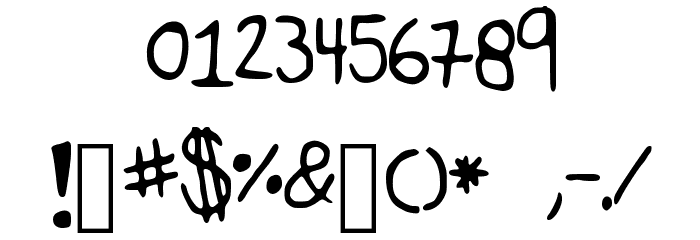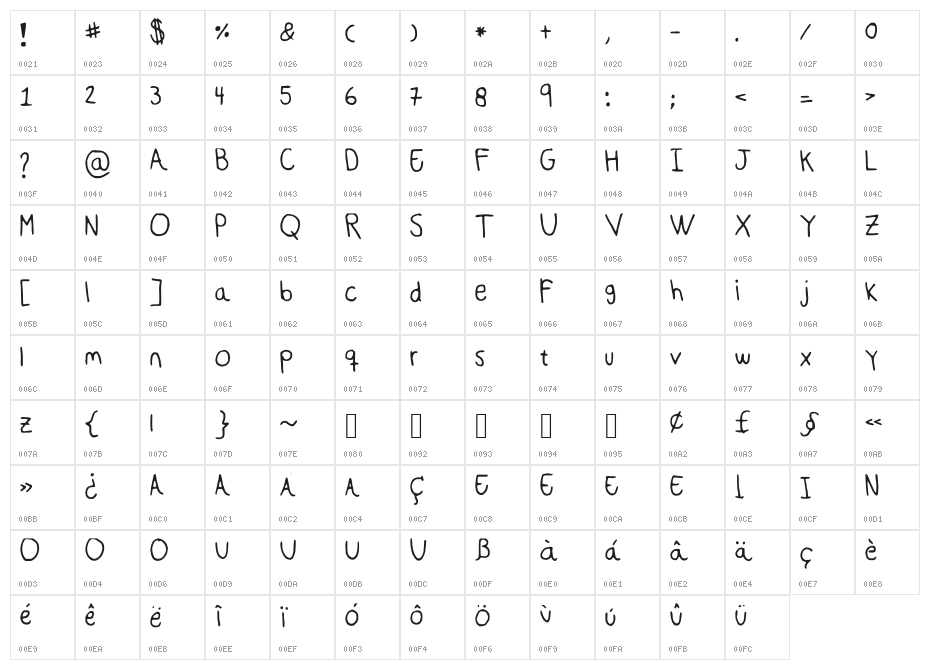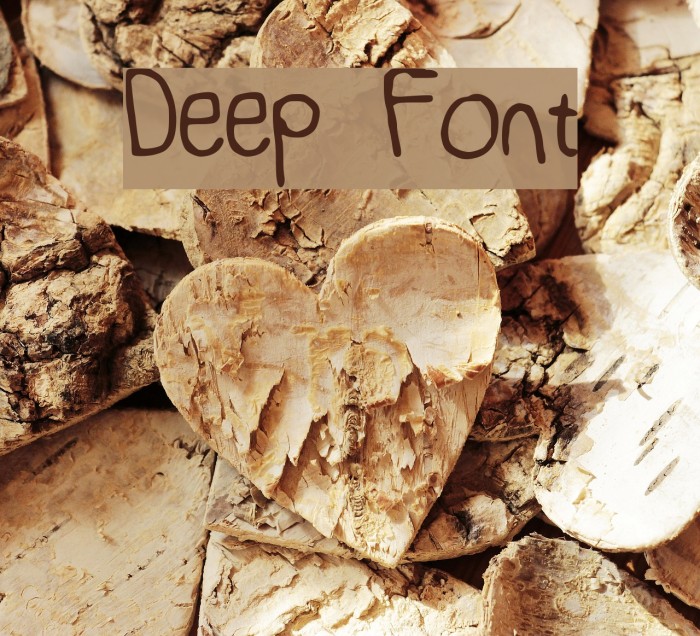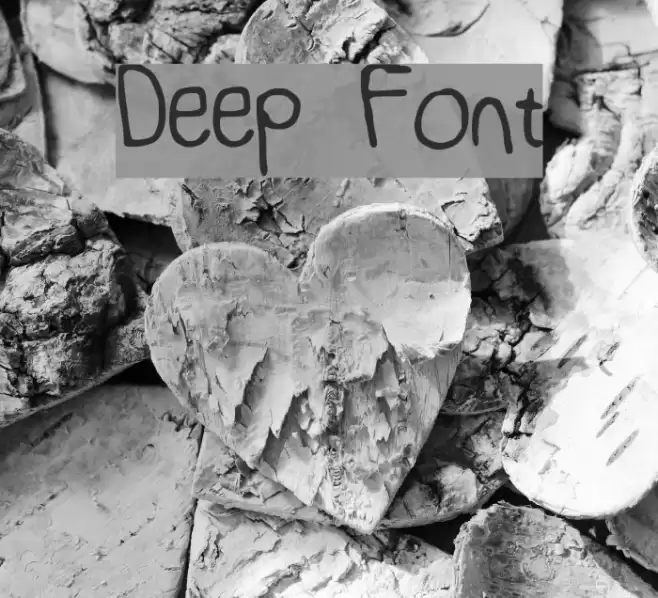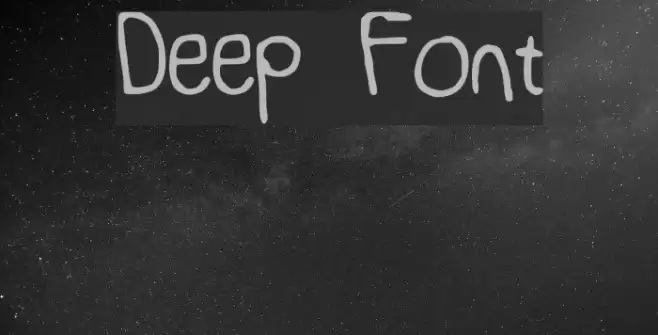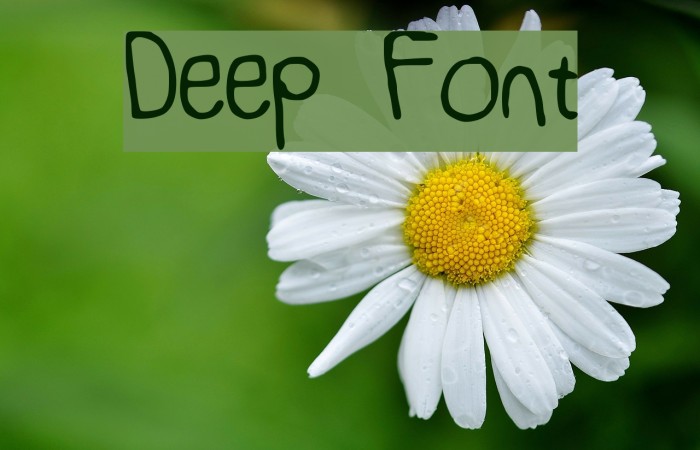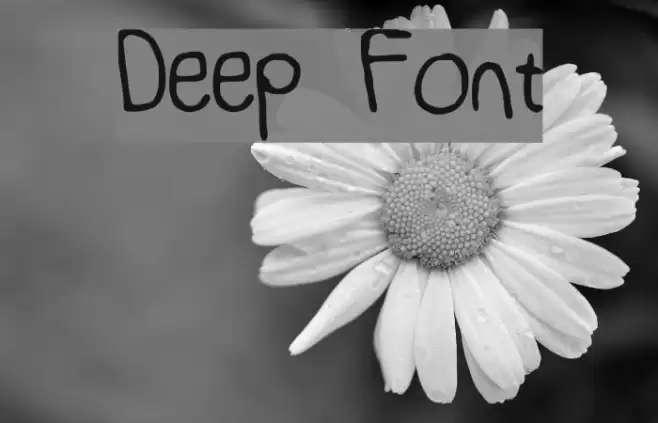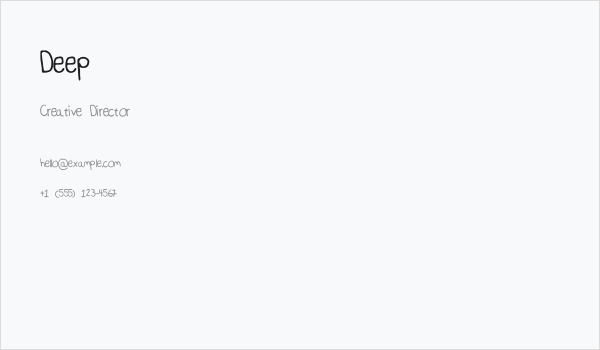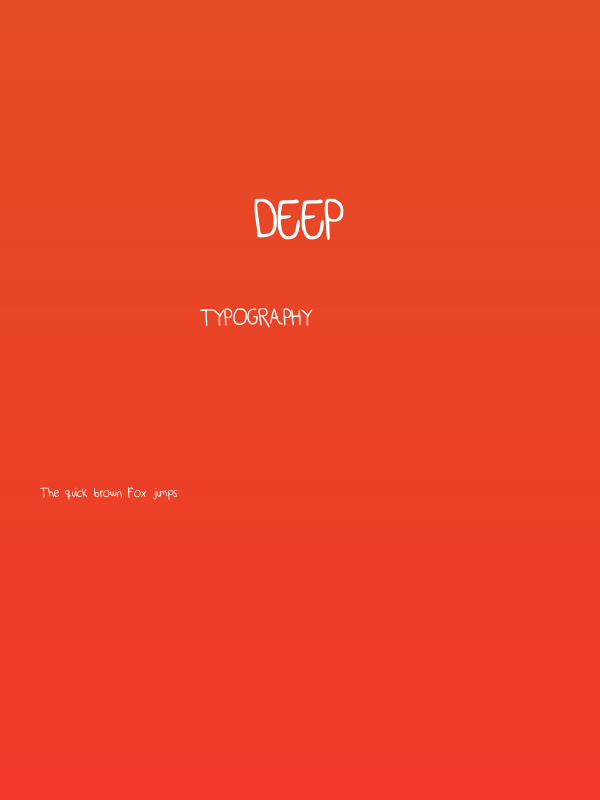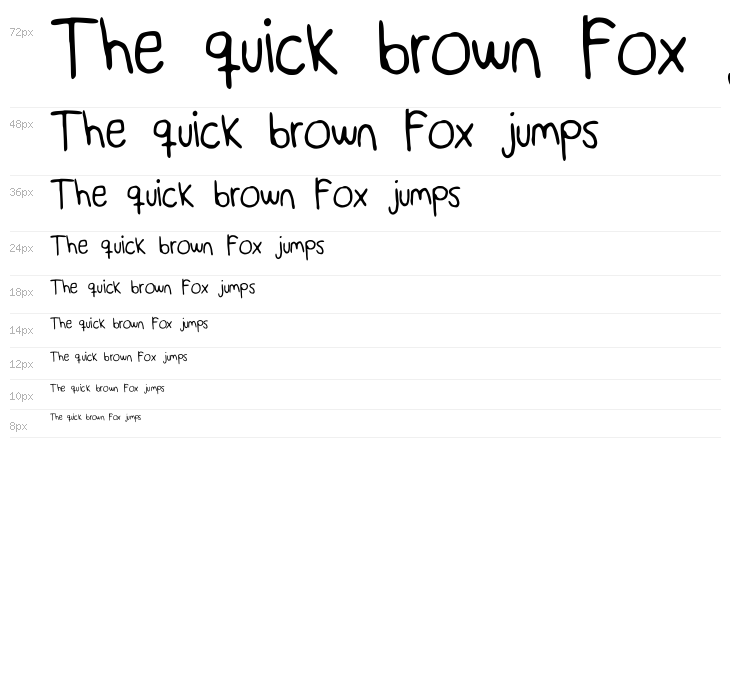
Deep Font
Deep Description
This font features a playful and informal handwritten style, characterized by its irregular and slightly uneven strokes. The letters have a casual and friendly appearance, with rounded edges and a consistent thickness throughout. The uppercase and lowercase letters maintain a cohesive look, while the numbers and special characters complement the overall design. This font exudes a sense of approachability and creativity, making it suitable for projects that require a personal touch. The spacing between characters is balanced, ensuring readability while maintaining the font's unique charm.
| Proposed Projects | Ideal for children's books, greeting cards, casual invitations, and creative branding. |